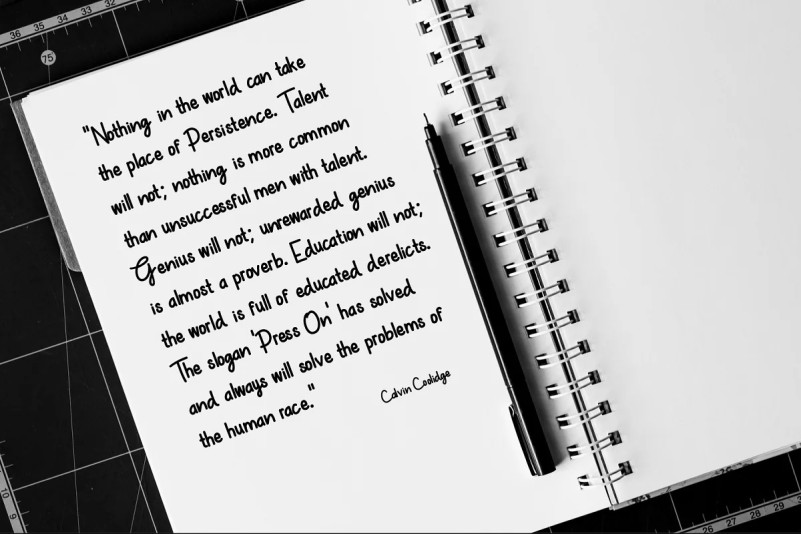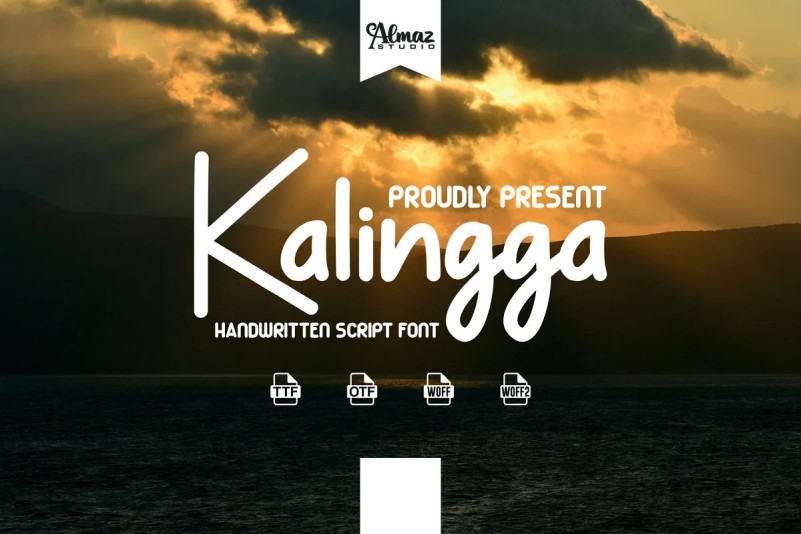
Kalingga Font
Kalingga fonts are font designs created for different vector designs. Perfect for branding, invitations, stationery, wedding design, social media posts, advertising, product packaging, product design, branding, photography, watermarks, events special events, etc. While printing can be used in the field of clothing products, accessories, bags, pins, logos and so on, it can make your products look elegant and attractive, while Multi-language support time!!!